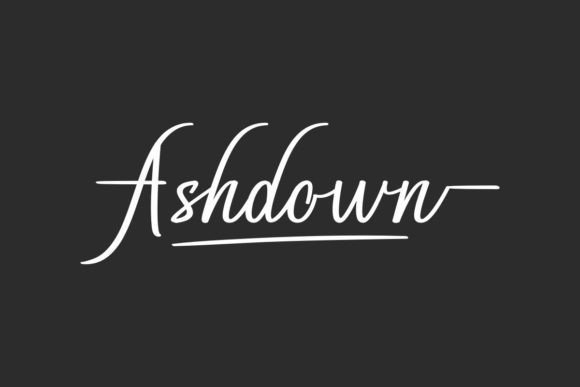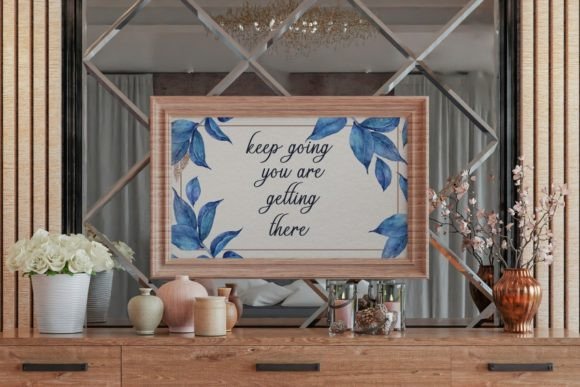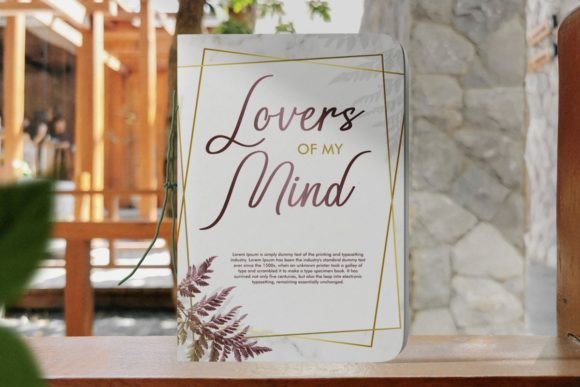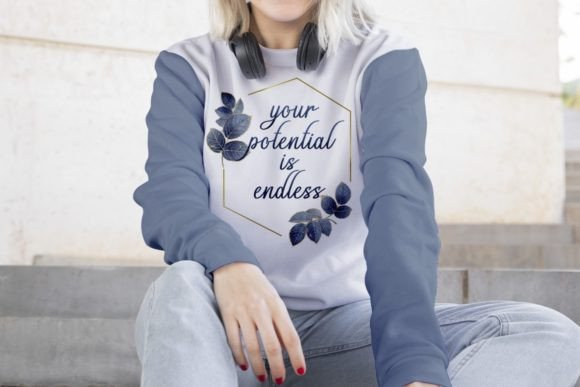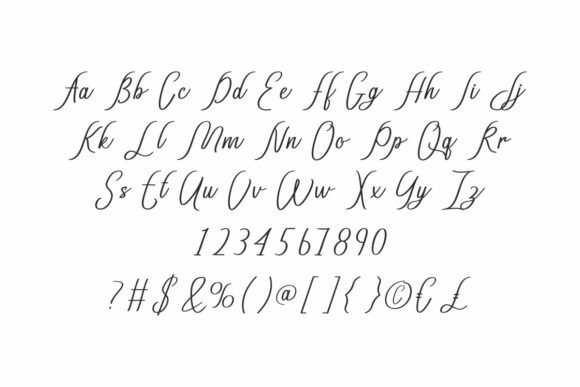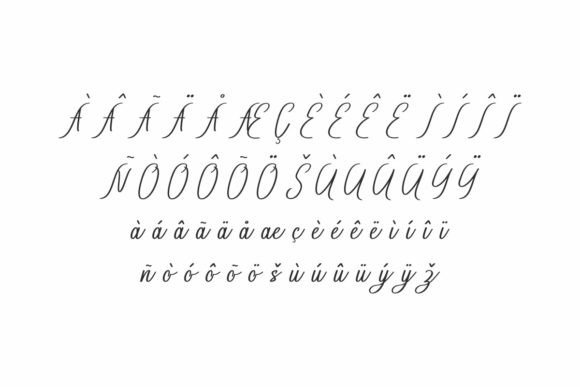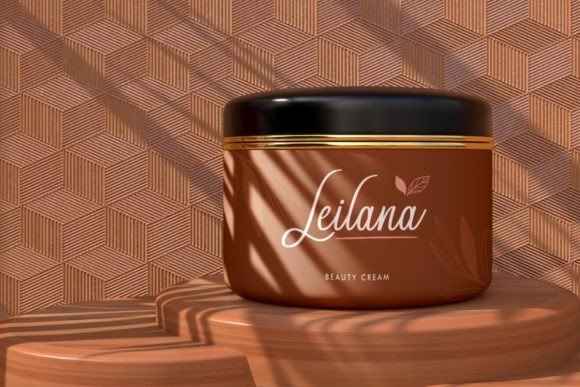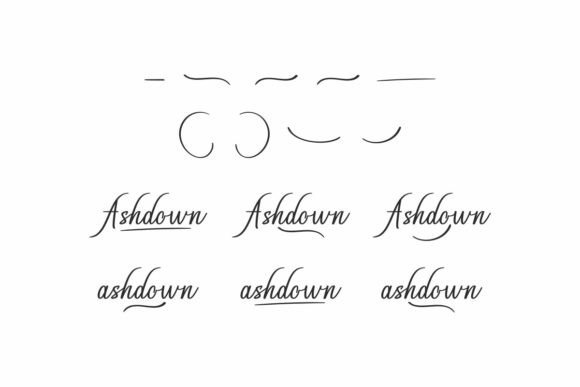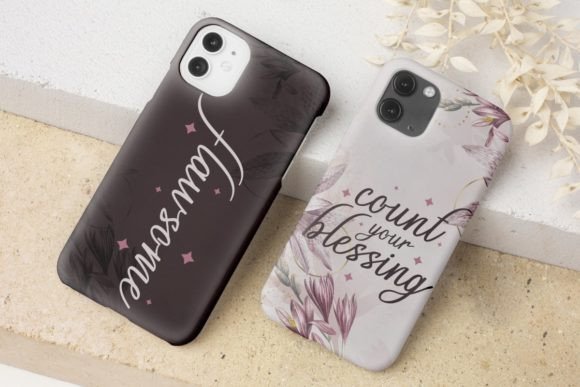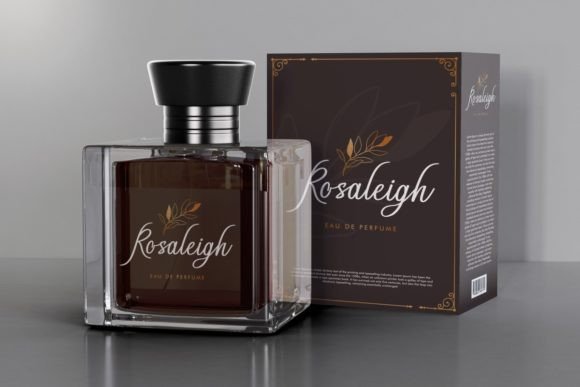
Ashdown
About Ashdown
Ashdown is a splendid and elegant font that brings into your mind the spring season. Stylish and modern this font can be used to enhance the view of your project ideas. Ashdown is PUA encoded which means you can access all of the glyphs and ligatures freely!